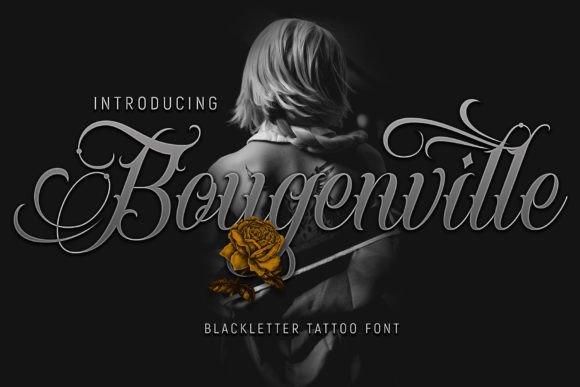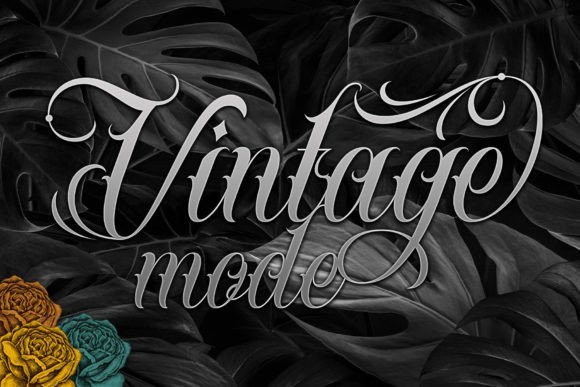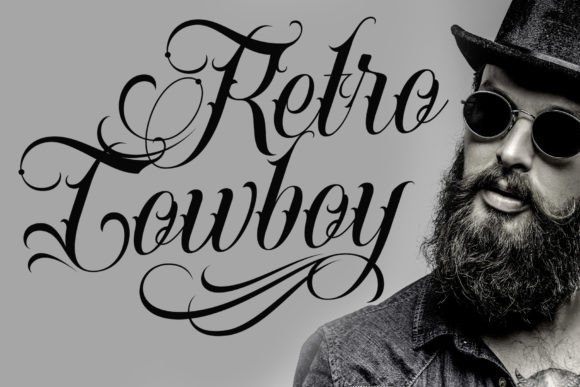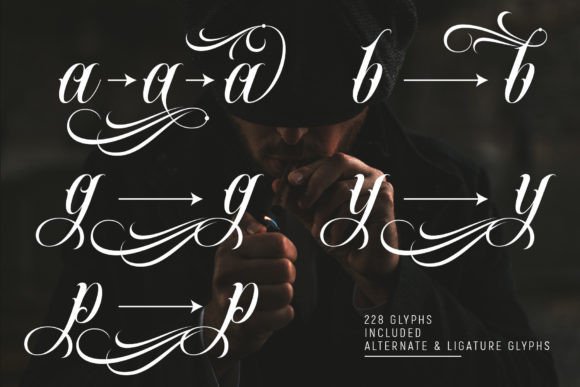
Bougenville Font: Vintage Blackletter for Tattoo & Logo Design
About the Bougenville Font
Meet Bougenville Font, a stunning font that brings a touch of elegance and professionalism to any design. Bougenville is a contemporary blackletter tattoo font that feels right at home on logos, t-shirt designs, posters, flyers, and other brand identity items. Add it confidently to your projects, and you will love the results.
Bougenville’s bold, slightly rebellious personality makes it ideal for edgy branding, punk-inspired designs, and projects requiring a strong visual impact. It excels in headlines, short impactful phrases, and logos where its unique character can shine. Avoid using it for body text or longform content; its intricate details become less legible at smaller sizes.
Pairing Bougenville effectively requires a contrasting typeface to balance its weight. A clean sans-serif like Montserrat or a geometric font such as Futura would create a strong, modern juxtaposition. For a softer contrast, consider a neutral serif like Lora.
The font’s inherent energy works best for brands aiming for a bold, memorable statement. Think streetwear, music festivals, tattoo parlors, or motorcycle clubs – projects where a powerful visual identity is paramount.